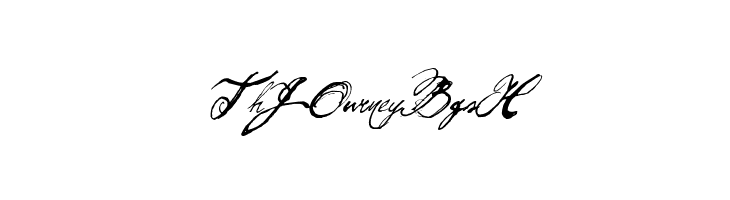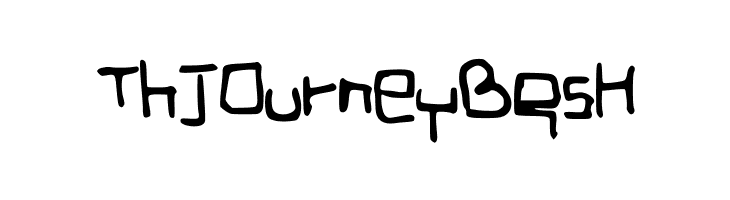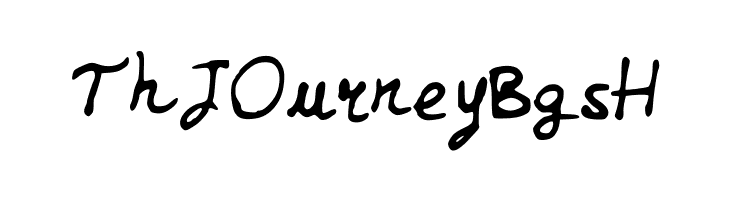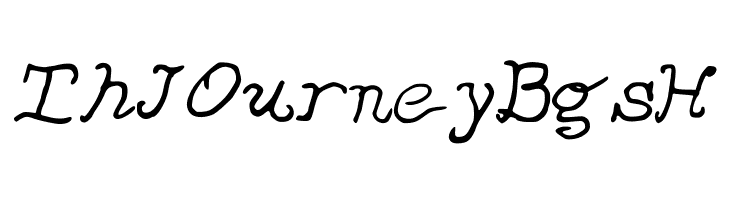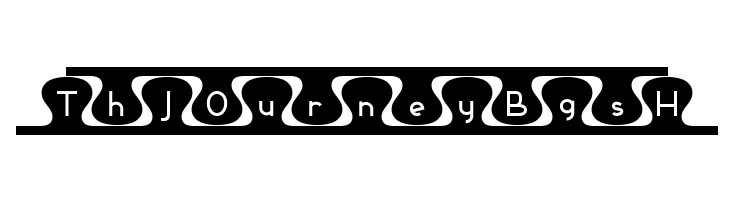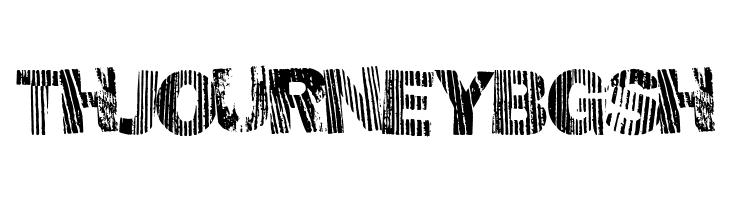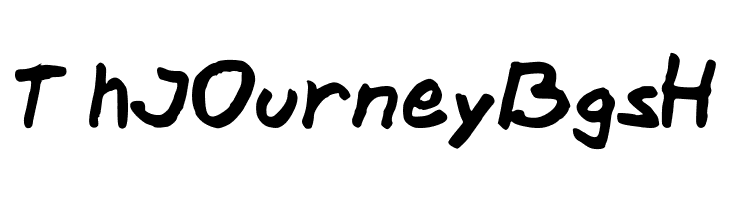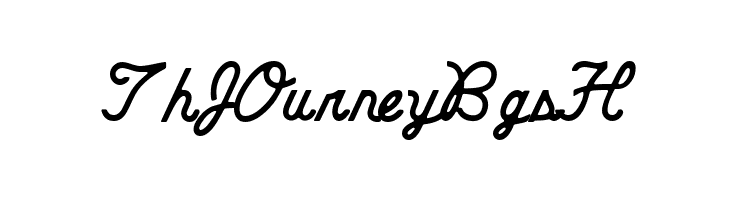
An elegant, cursive script font with a vintage, decorative style.
A playful, handwritten font with irregular strokes and a casual style.
A playful handwritten font with fluid, connected strokes.
A fluid and elegant script font with a handwritten style.
A playful, zipper-inspired decorative font with rounded, bulbous shapes.
A bold, distressed font with a grunge, textured appearance.
A bold, playful handwritten font with a casual and youthful style.
A flowing, cursive script font with elegant, interconnected letters.